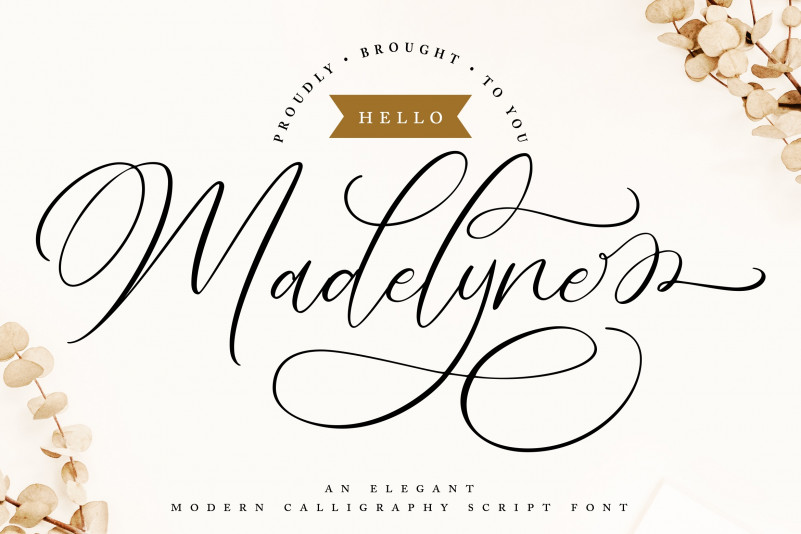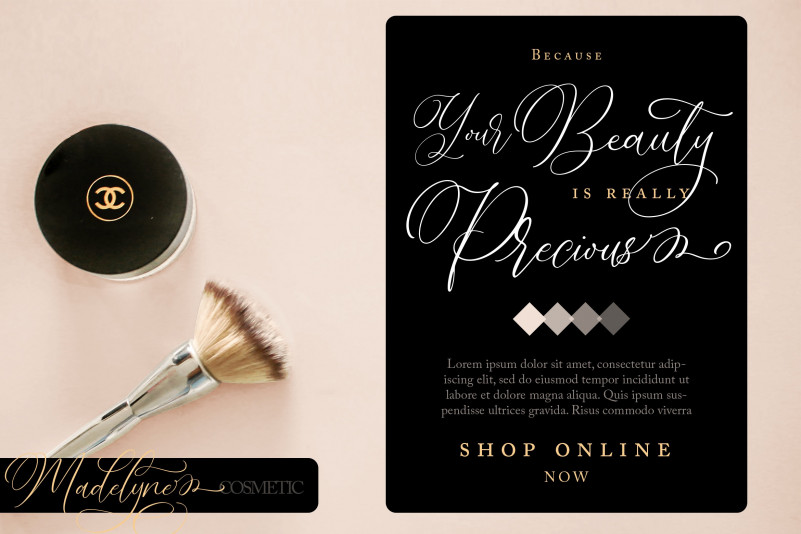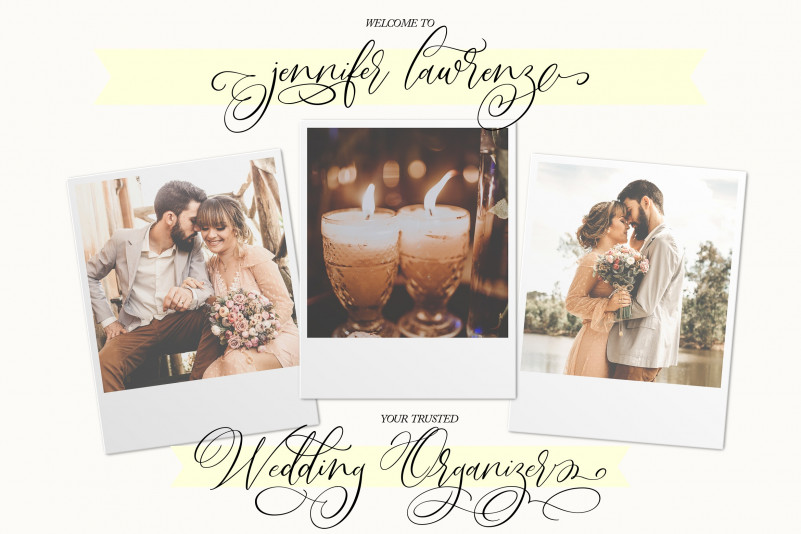
Hello Madelyne Calligraphy Font
Hello Madelyne is a Modern Calligraphy Script typeface, perfectly suitable for creating quotes, Wedding Invitation, Beauty design such as logos, quote, and magazine and more.